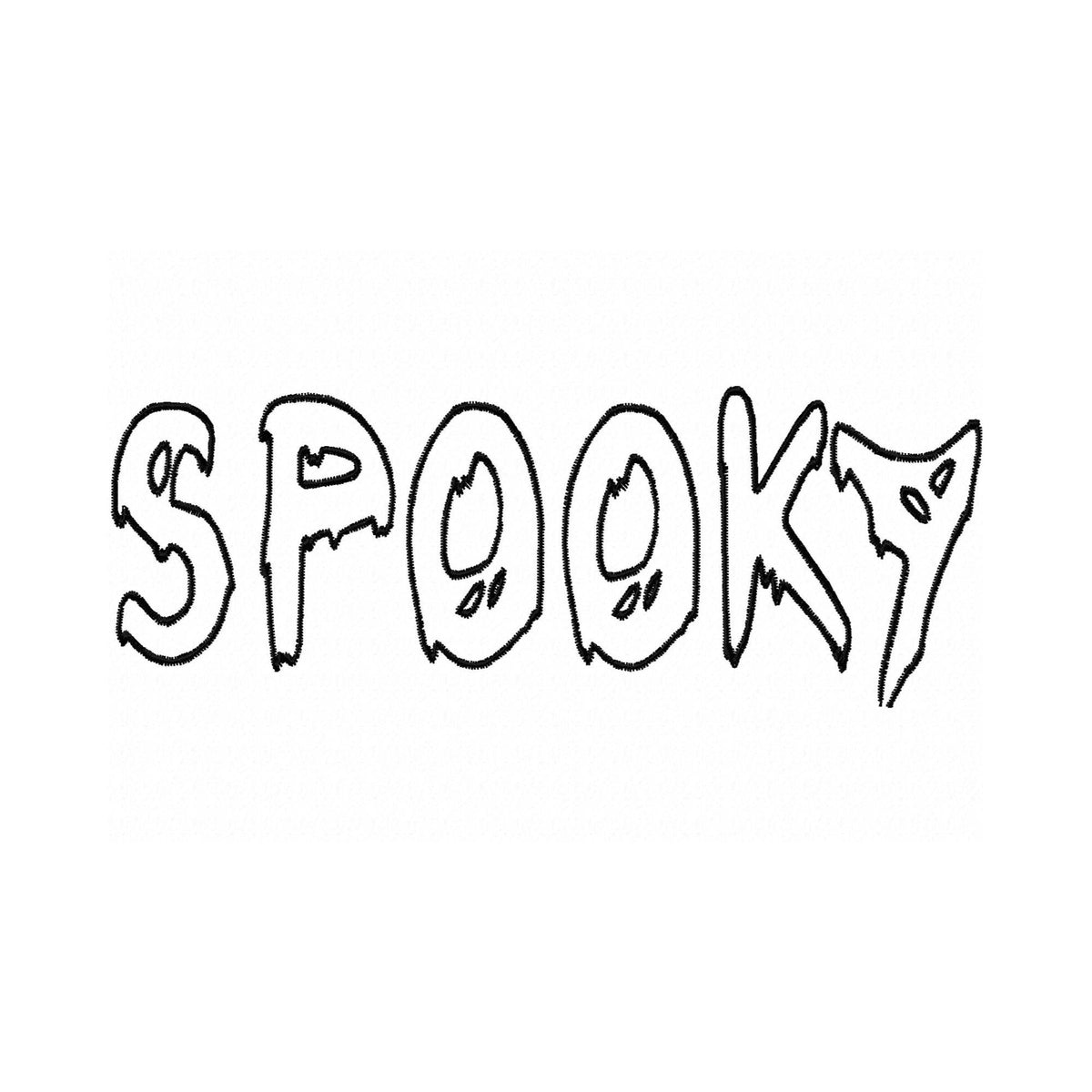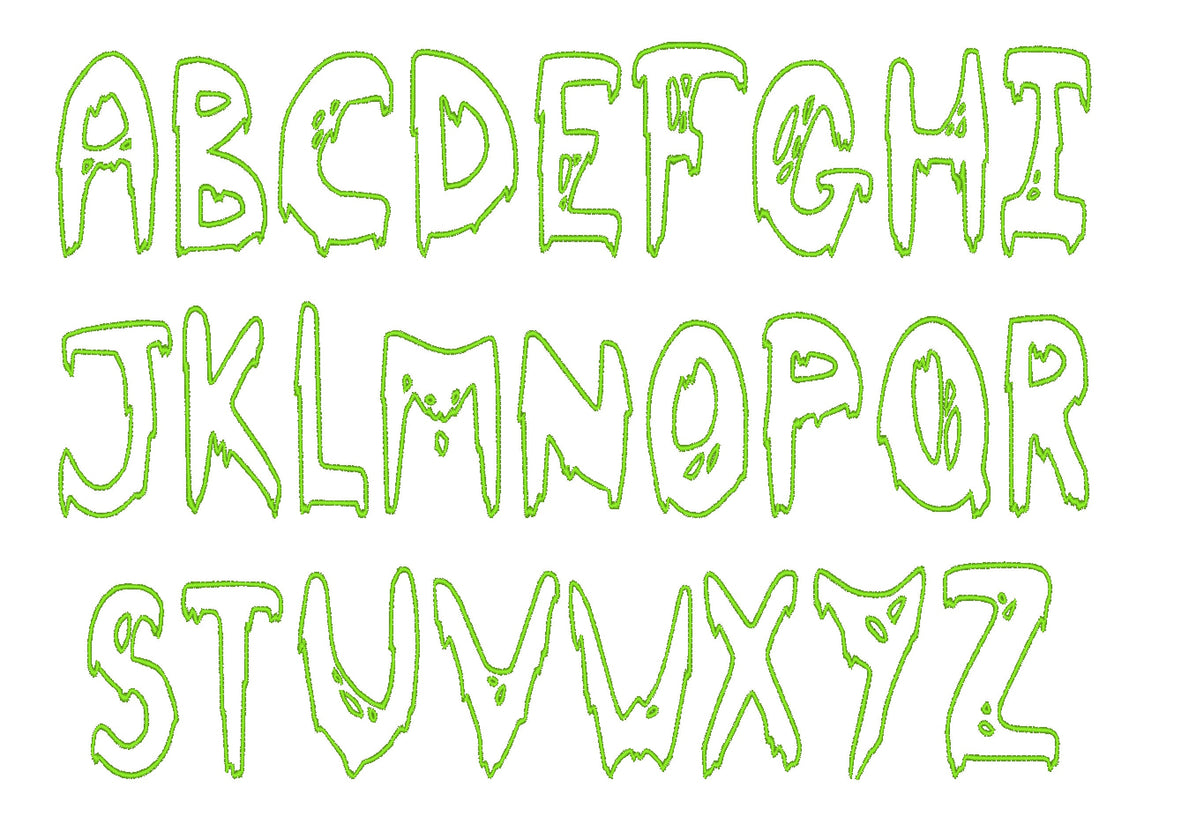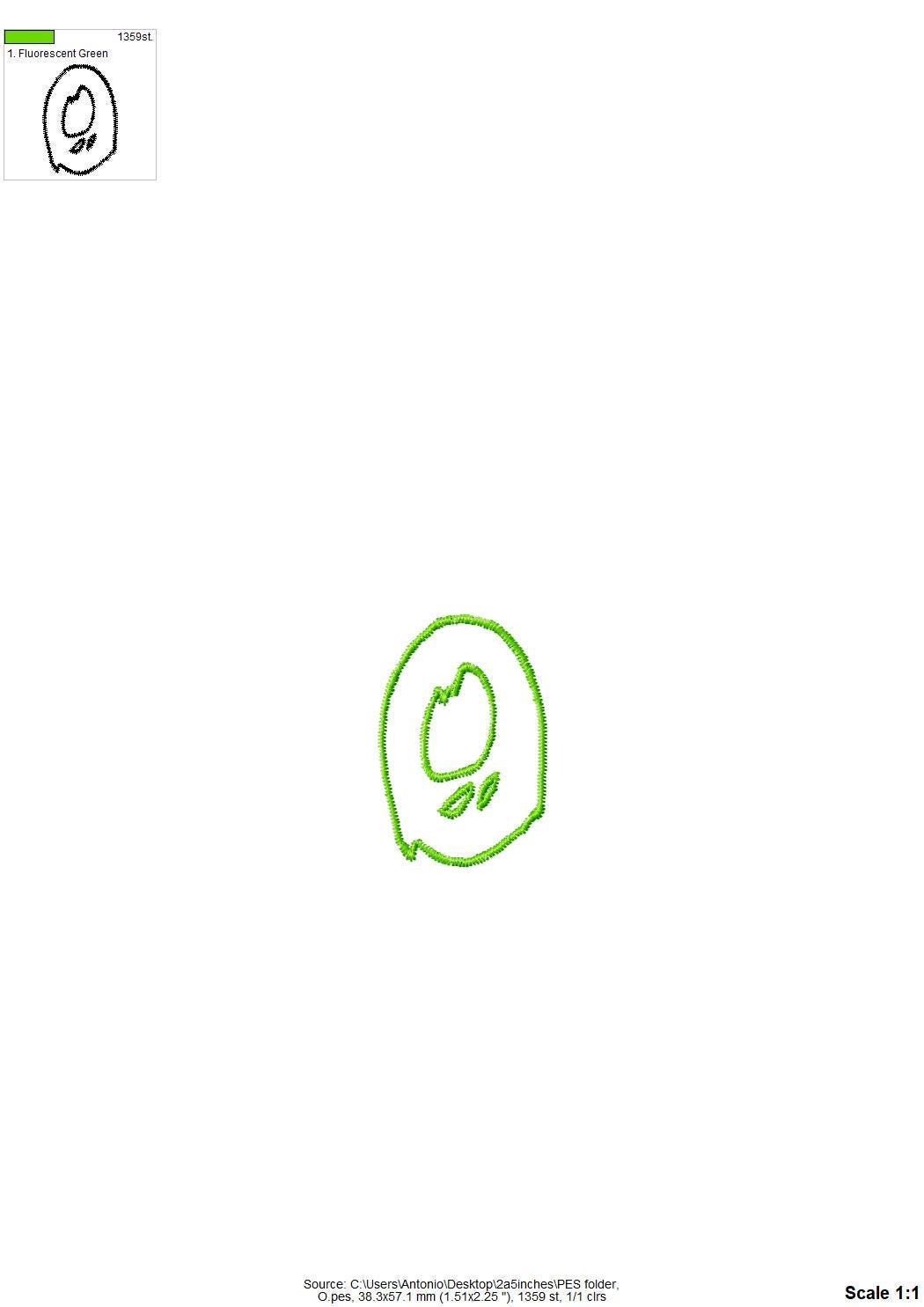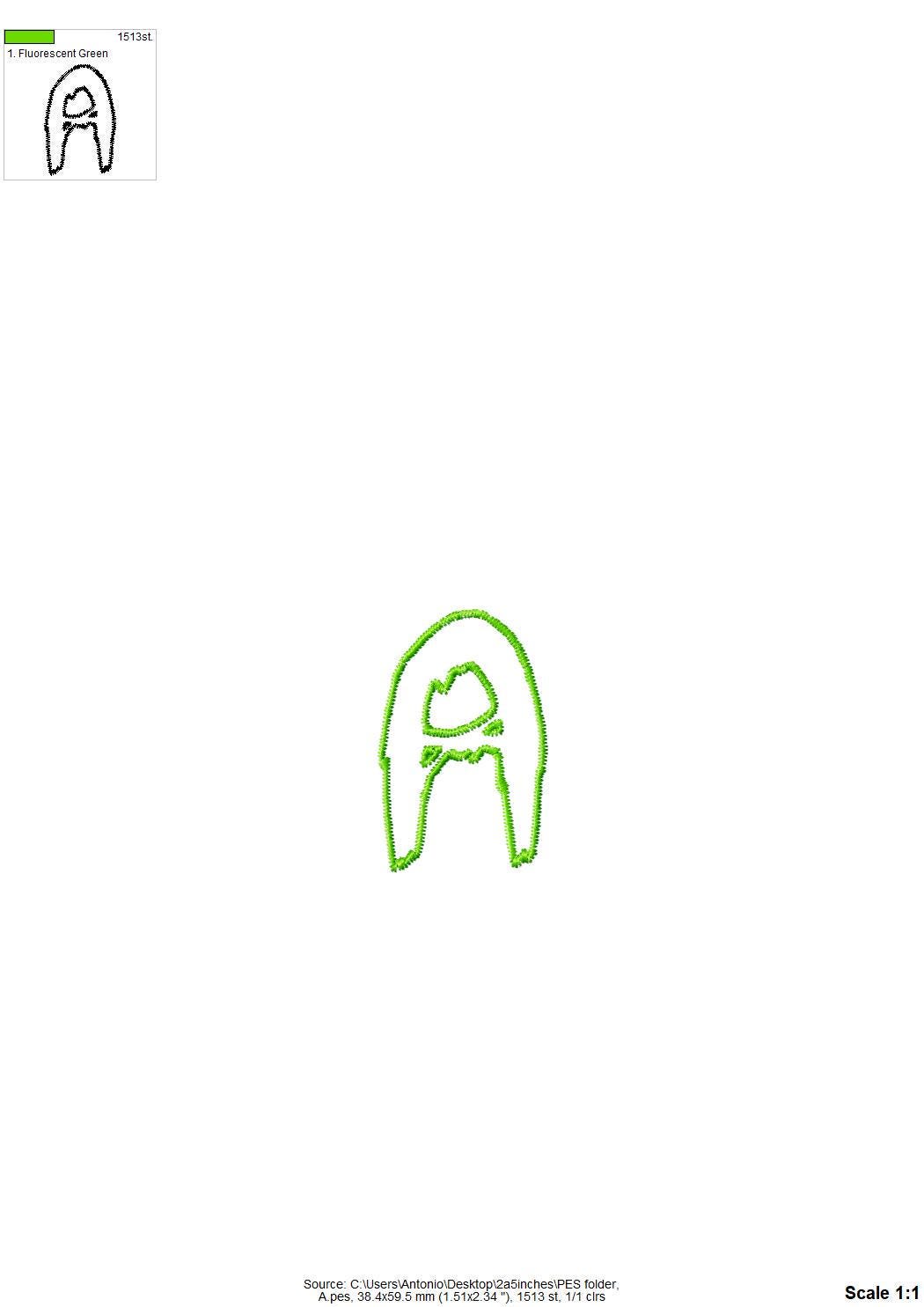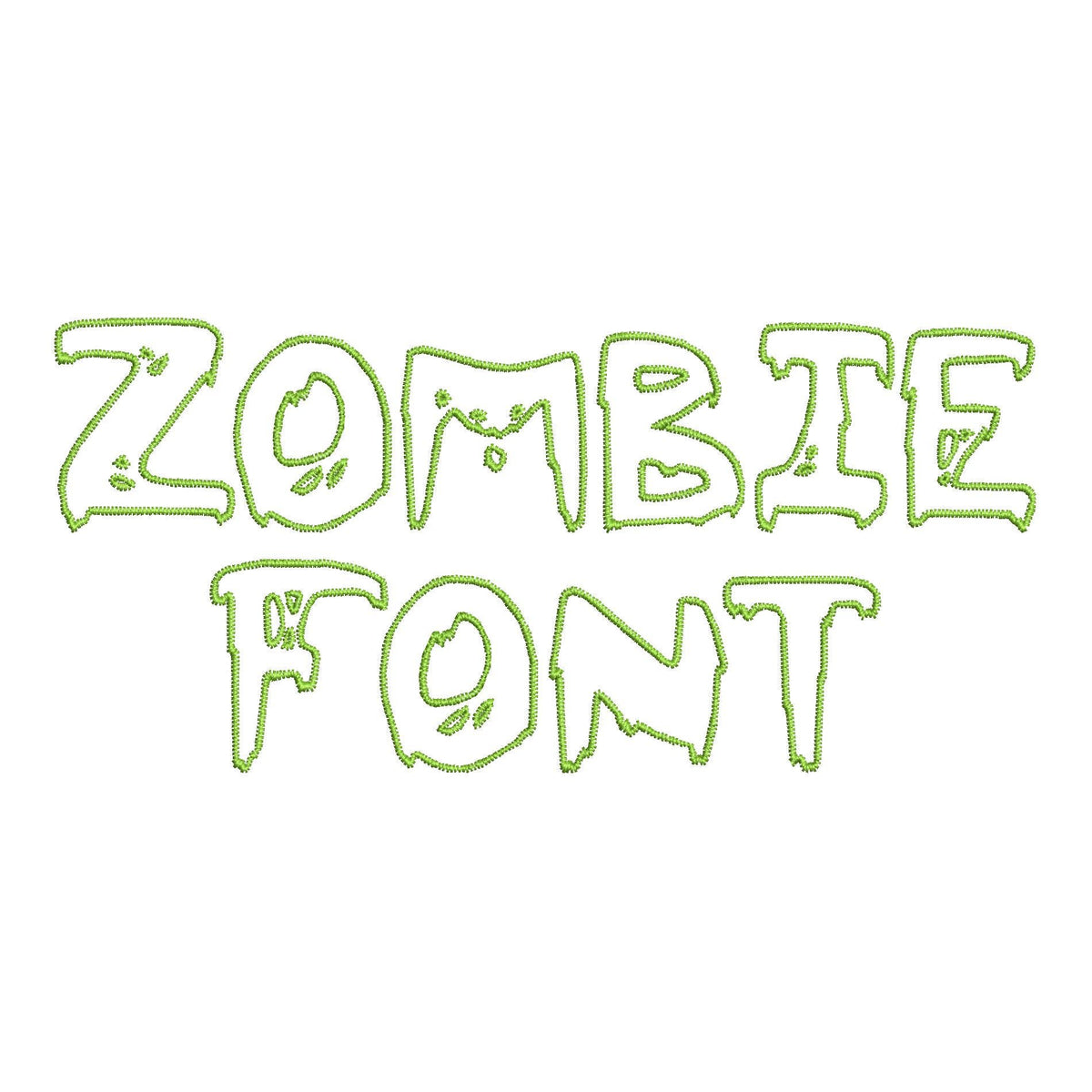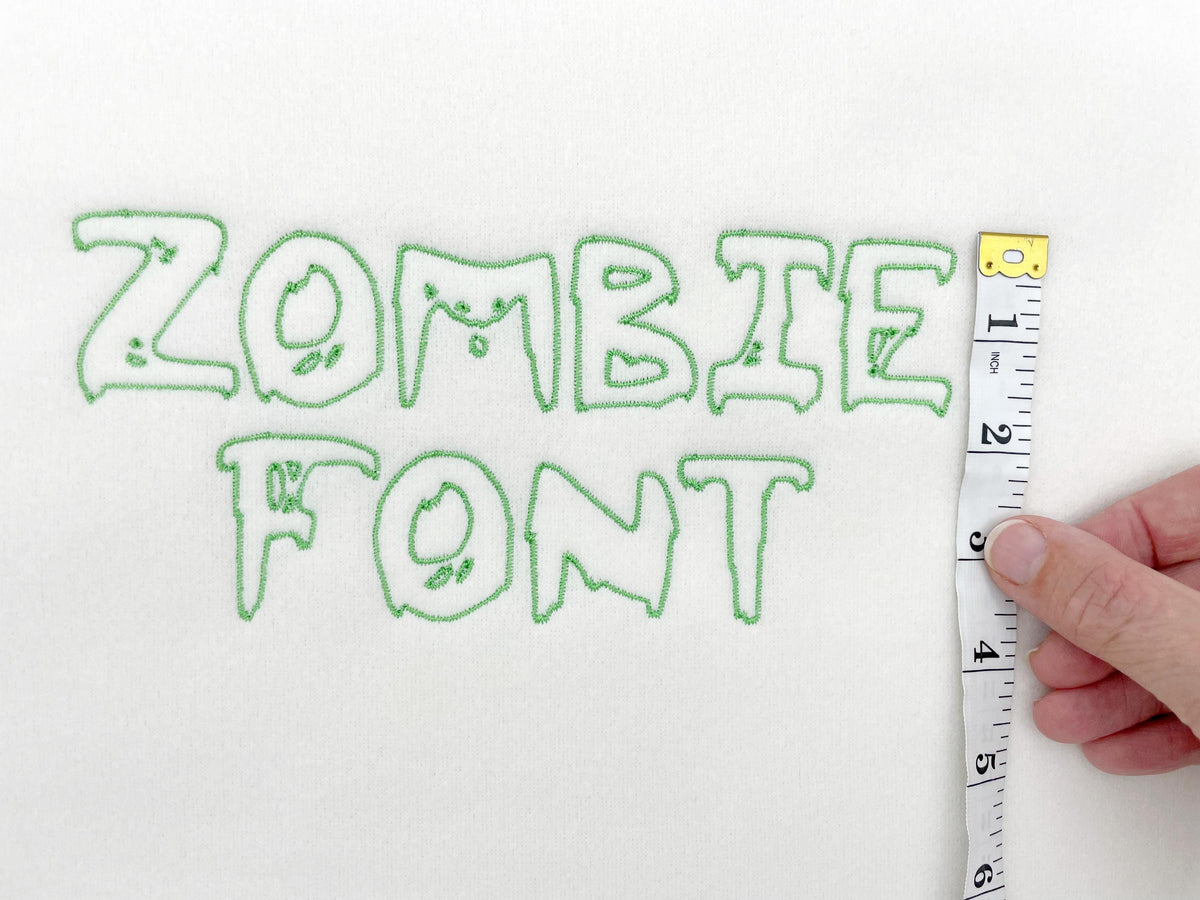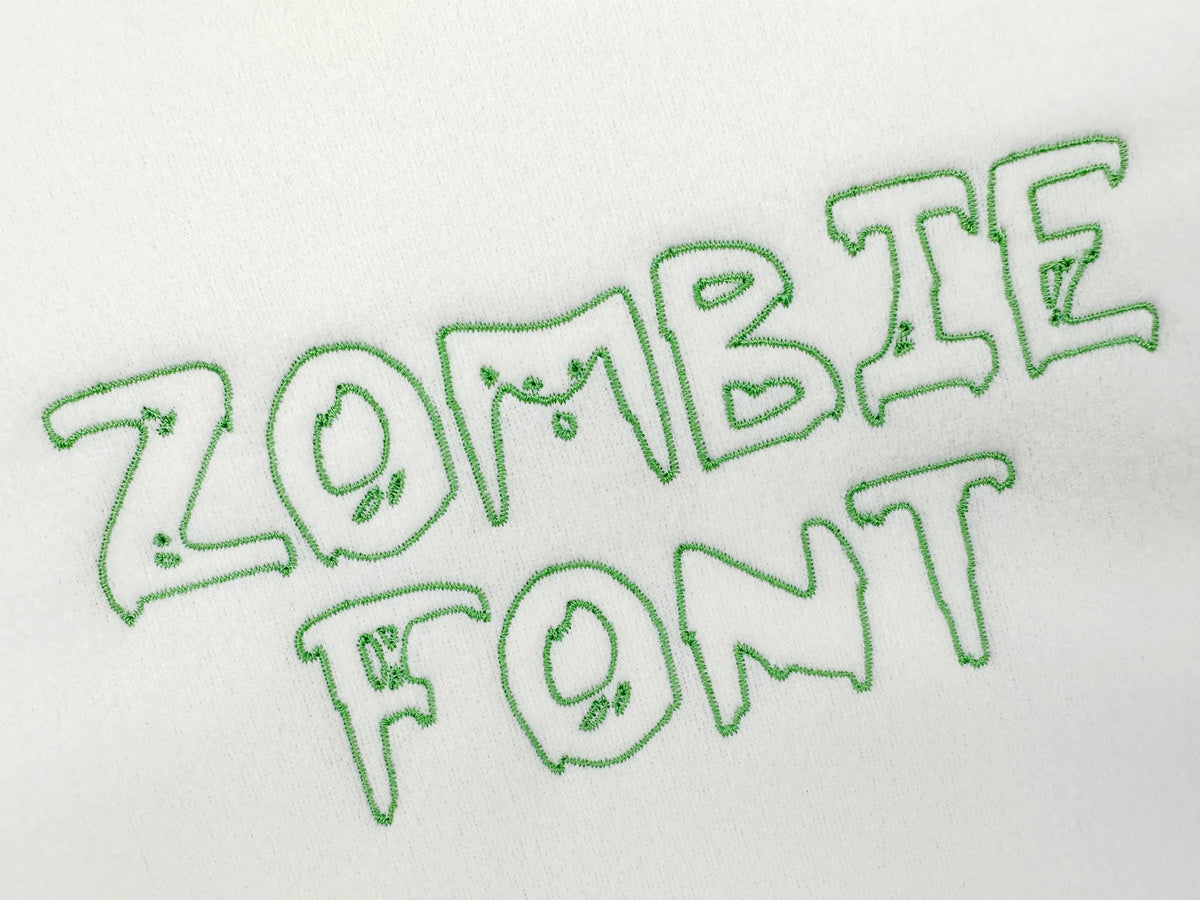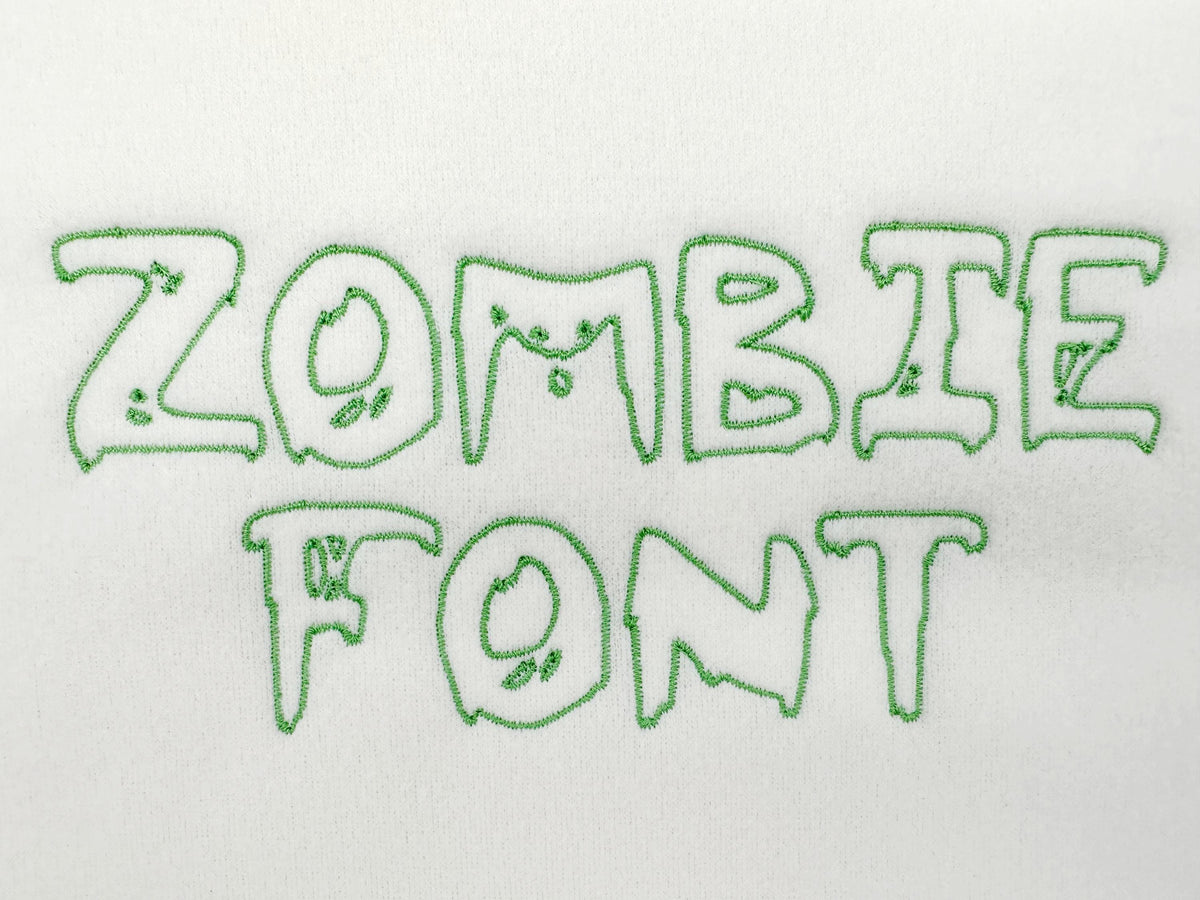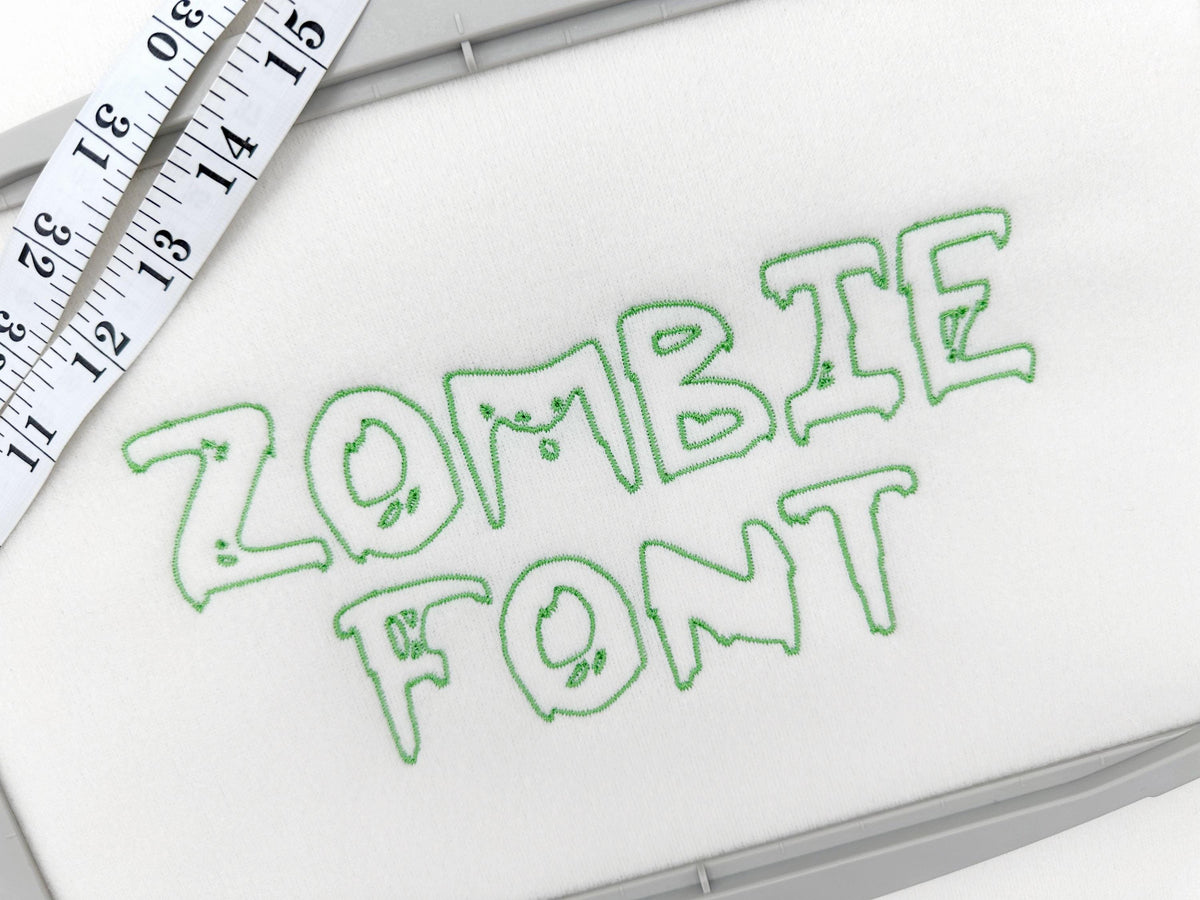
Spooky Zombie Font
Or click to open the linkA spooky zombie font in a thin, quick outline stitch. Fun for Halloween shirts, trick-or-treat bags and kids' costumes.
The letters come in seven sizes: 1.4, 2, 2.5, 3, 3.5, 4 and 4.5 inches. A quick outline stitch for a thin, creepy look. Includes uppercase letters A to Z.
- Spooky zombie outline font
- Uppercase A to Z
- 7 sizes, 1.4 to 4.5 in